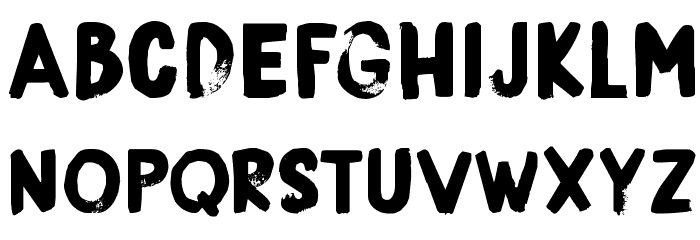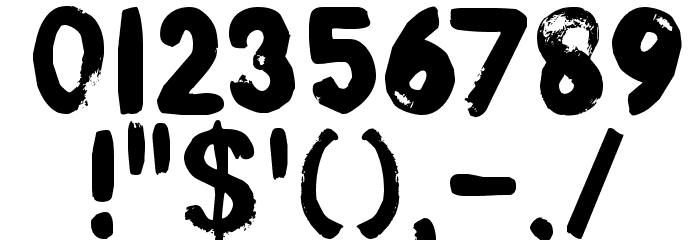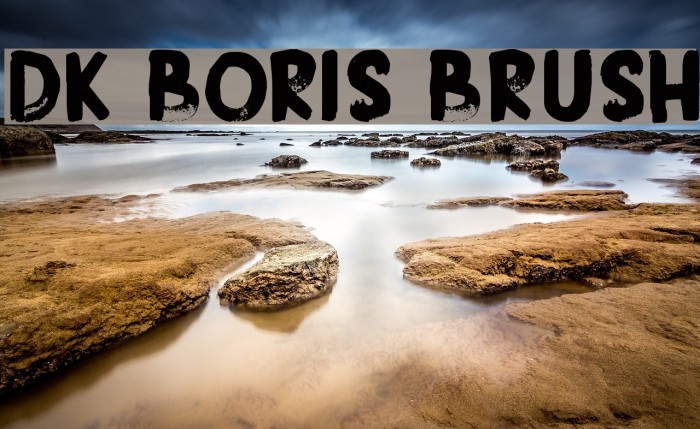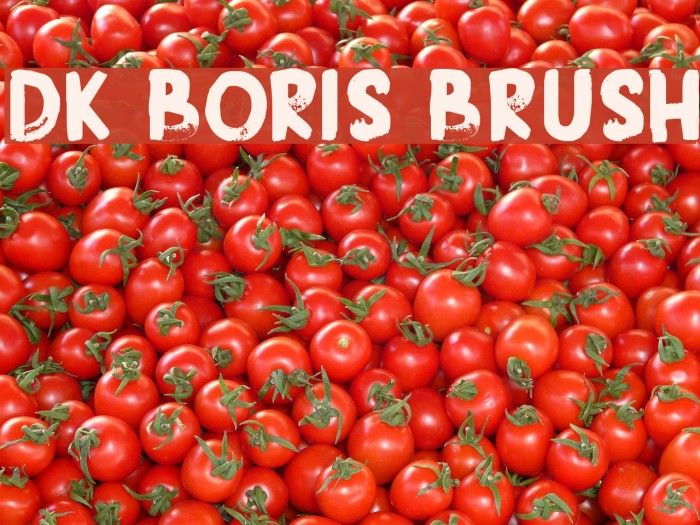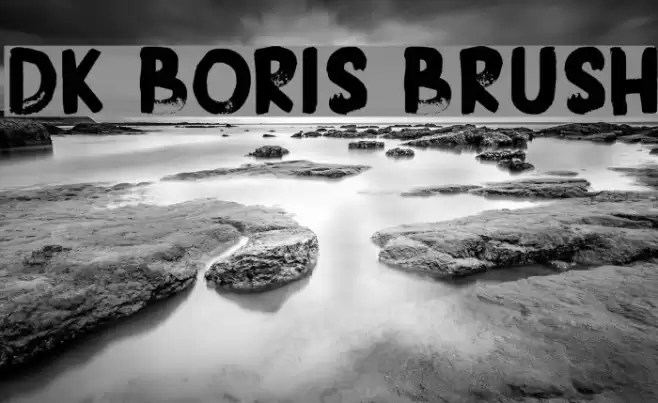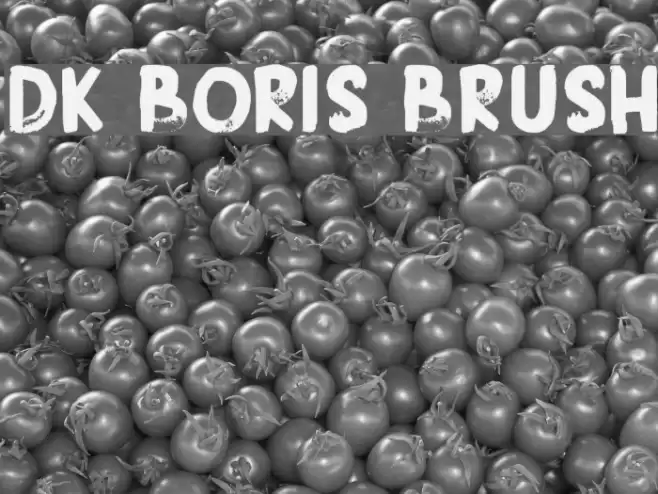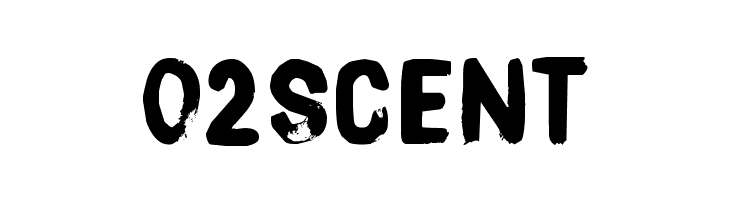
DK Boris Brush Font
This font exudes a bold and artistic flair, characterized by its brushstroke appearance that gives each character a dynamic and textured look. The strokes are uneven, adding a sense of movement and energy, while the boldness ensures strong visibility. The uppercase and lowercase letters maintain a consistent style, with rounded edges and varying stroke widths that mimic the natural flow of a brush. The numerals and special characters follow the same aesthetic, making them cohesive with the alphabet. This font is perfect for projects that require a creative and expressive touch, such as posters, branding, and artistic designs.
A bold, brushstroke-style font with dynamic and textured characters.
- Proposed Projects: Ideal for posters, branding, artistic designs, and any project needing a creative touch.
- Overall Style: Artistic, Expressive